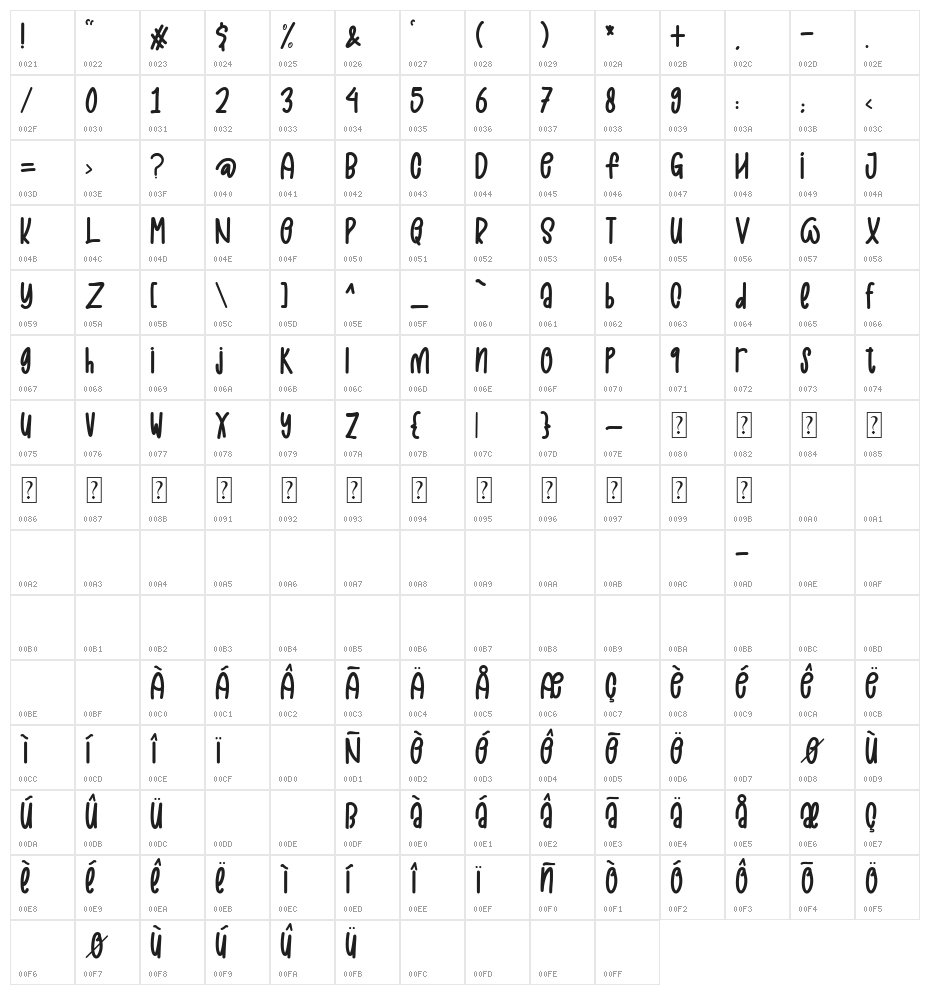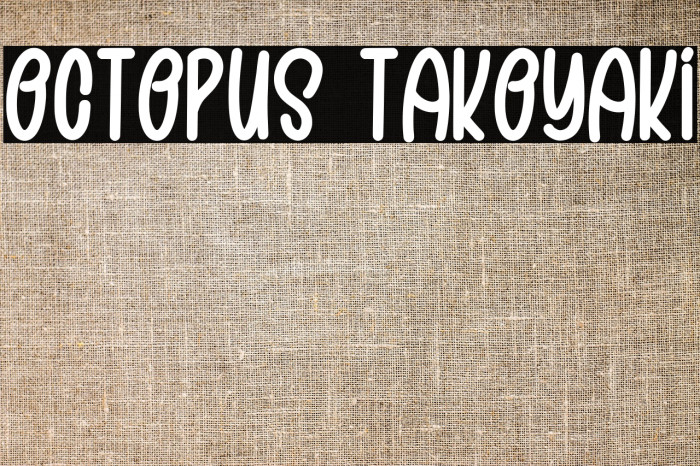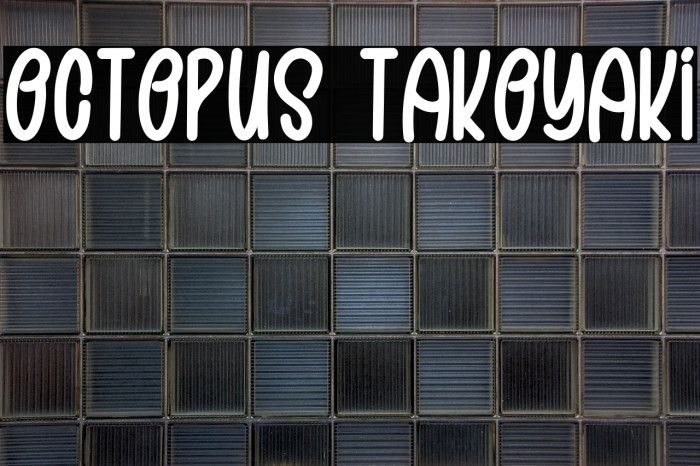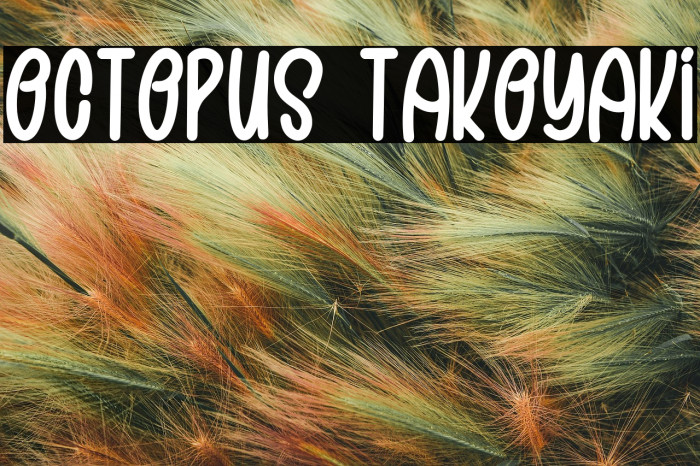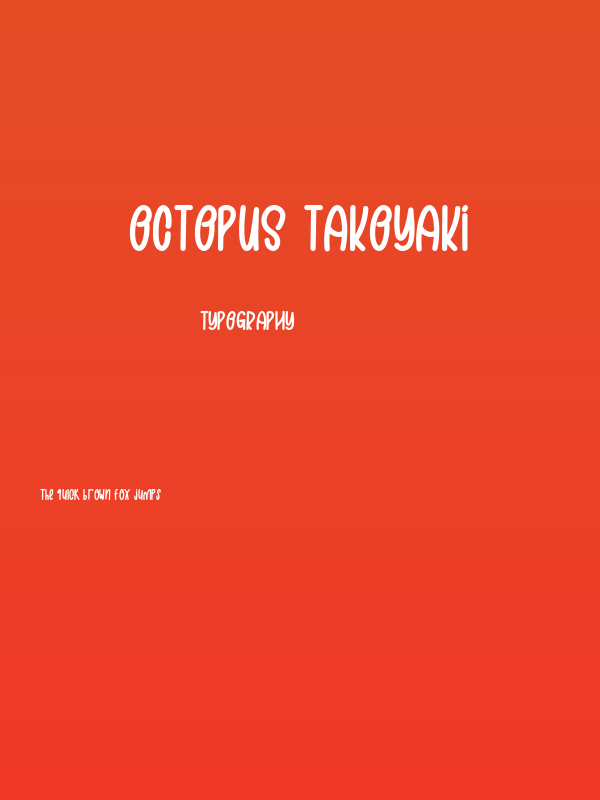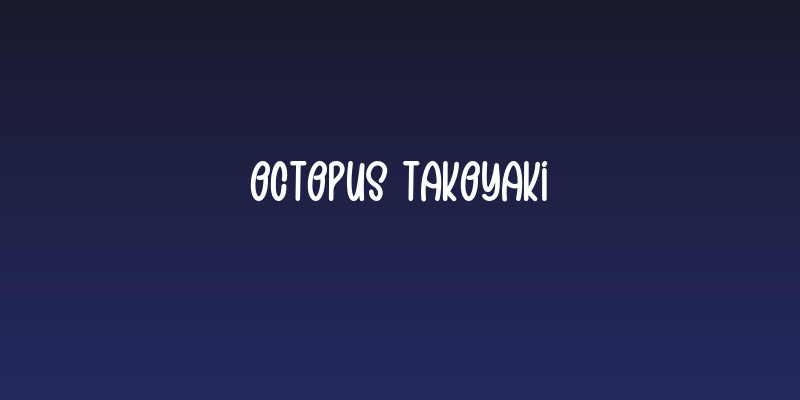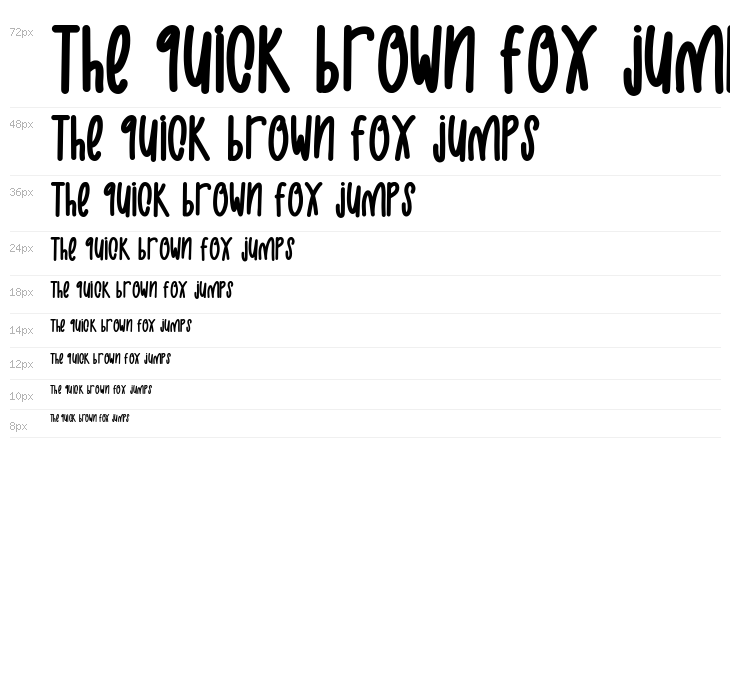
OCTOPUS TAKOYAKI Font
OCTOPUS TAKOYAKI Description
This font features a playful and bold handwritten style with rounded edges and a slightly irregular baseline, giving it a casual and friendly appearance. The characters are thick and well-defined, making them highly legible while maintaining a whimsical charm. The uppercase and lowercase letters are consistent in style, with a slight slant that adds to the informal feel. Numbers and special characters are included, matching the overall aesthetic with their rounded and bold design. This font is perfect for projects that require a touch of fun and personality.
| Proposed Projects | Ideal for children's books, playful branding, greeting cards, and social media graphics. |